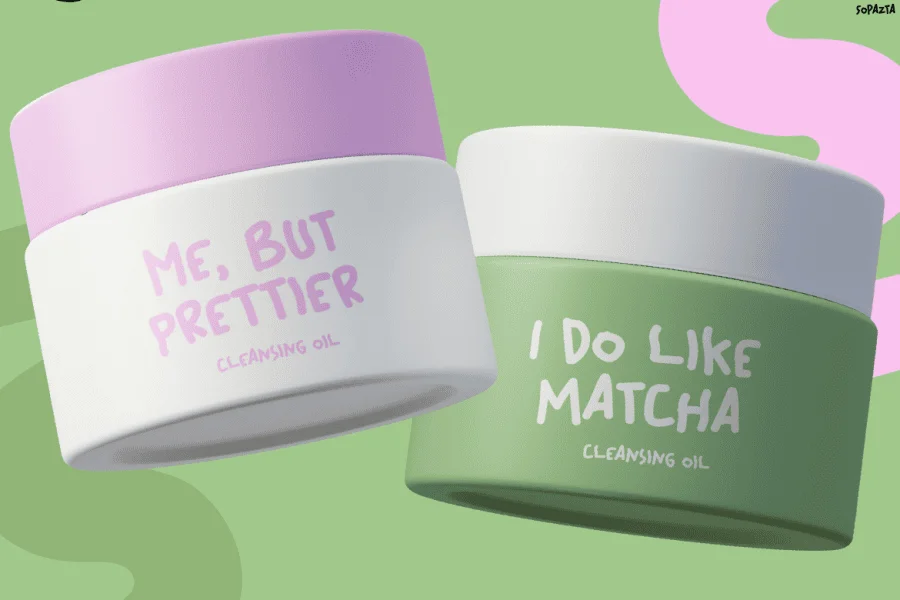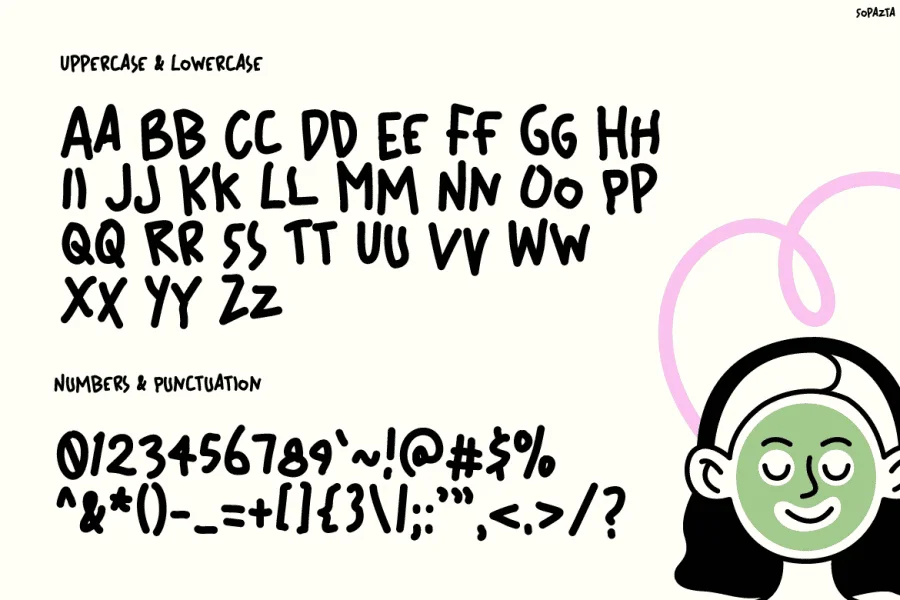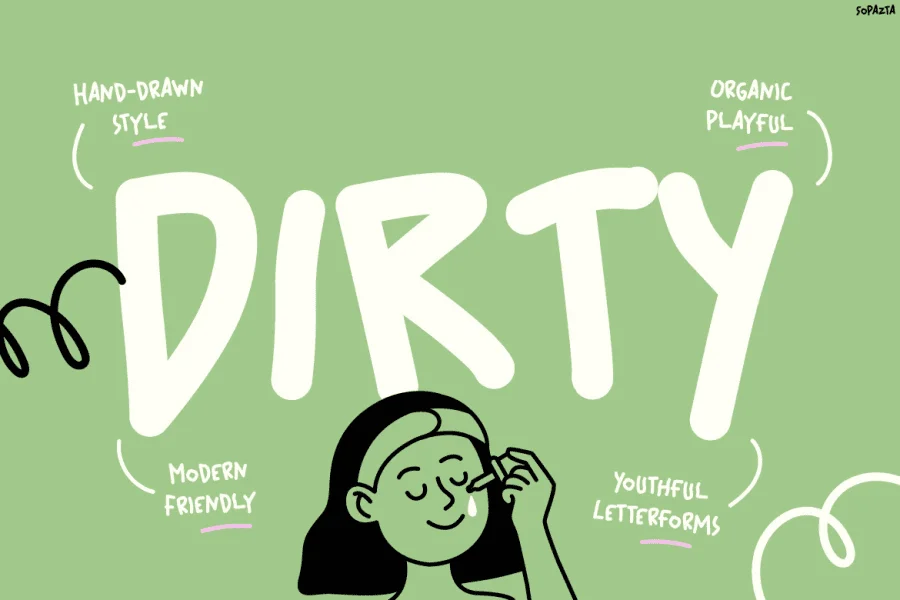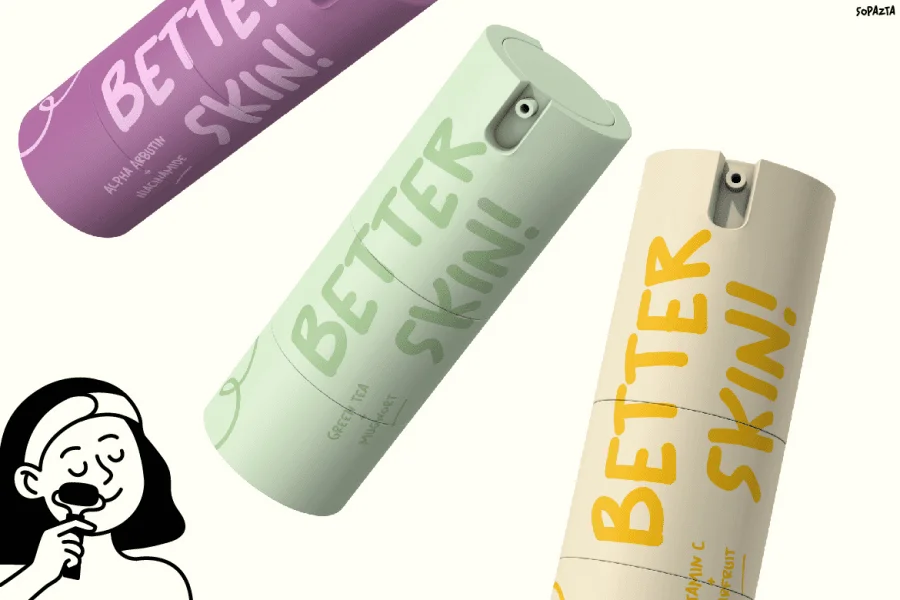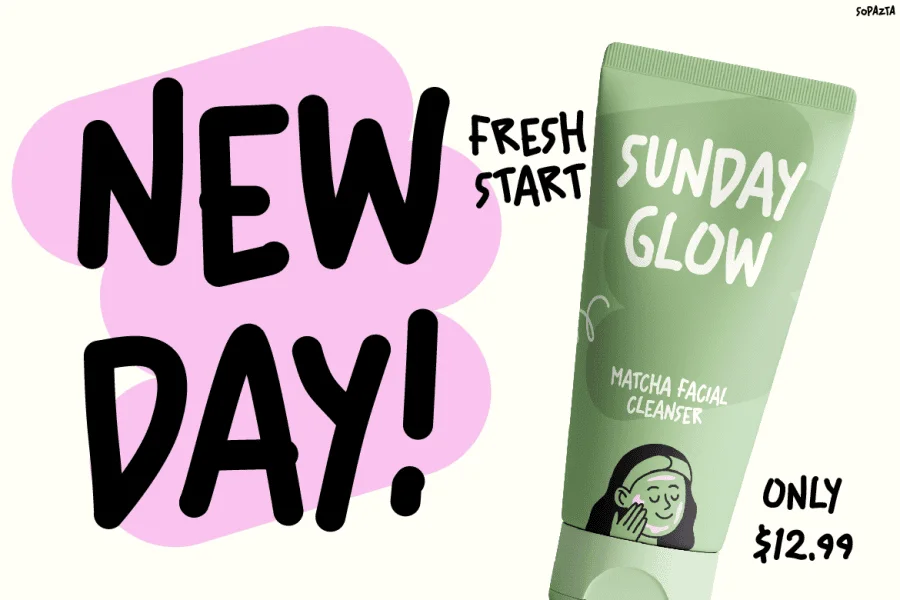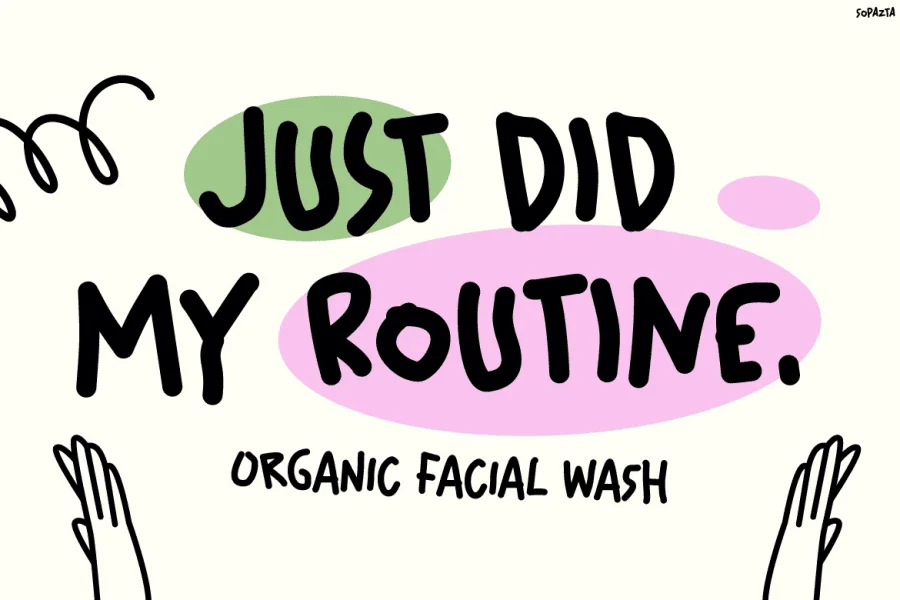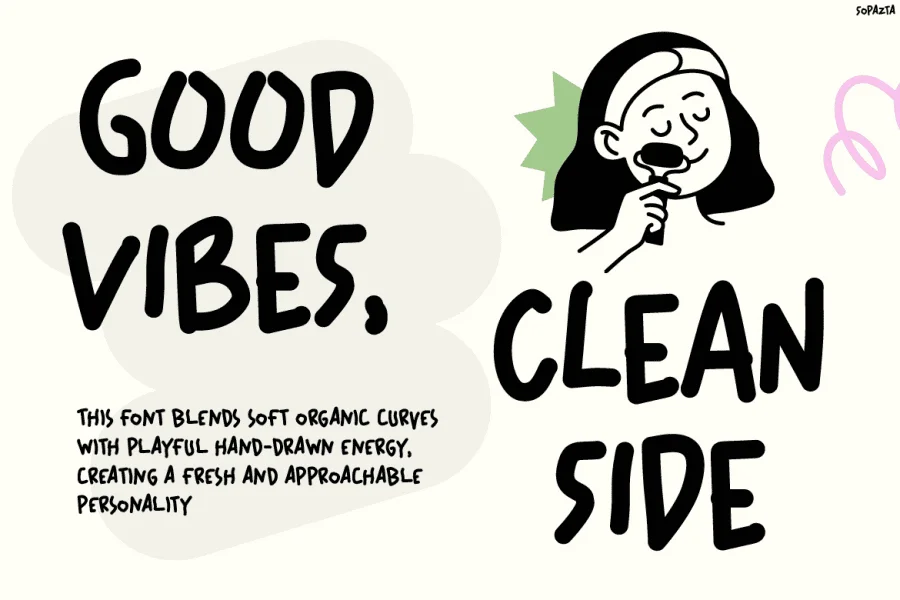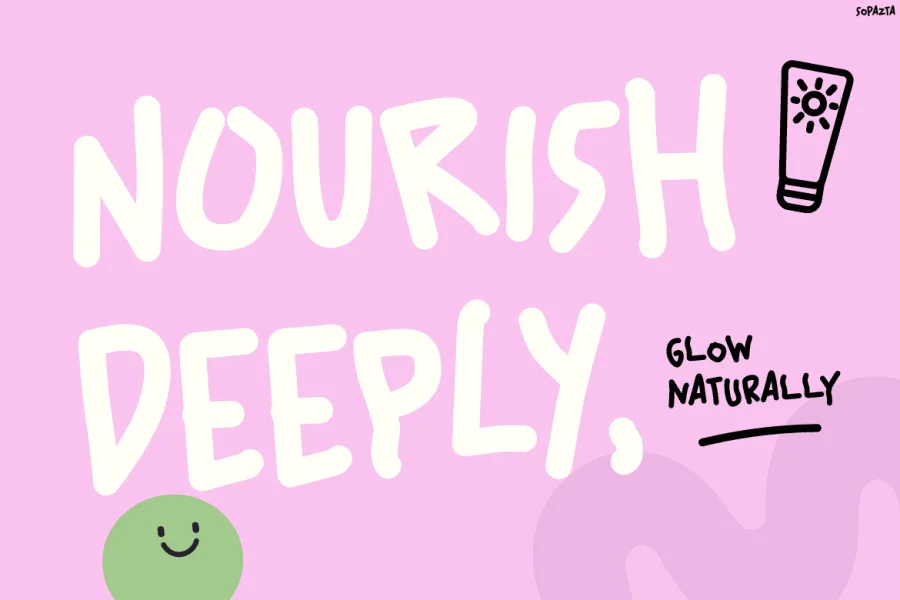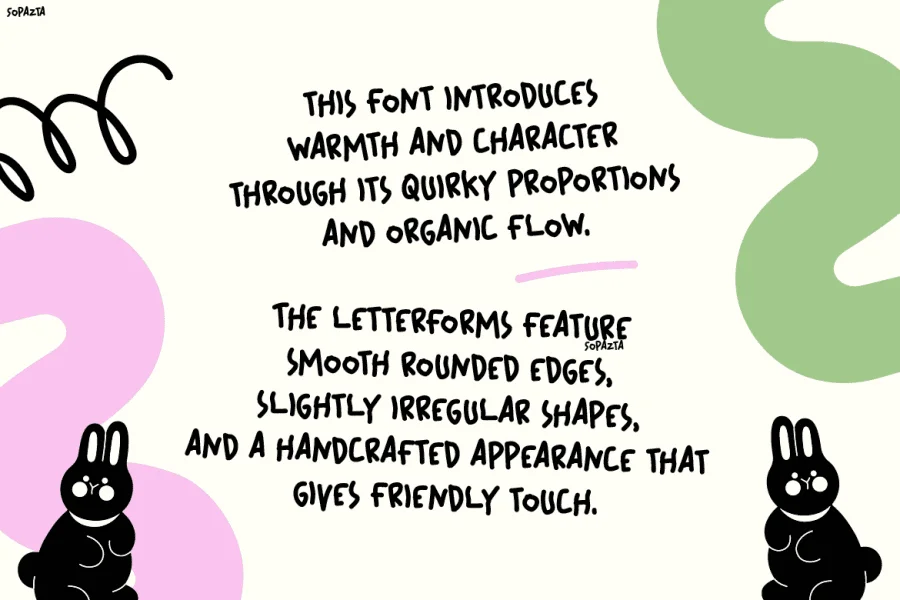
Sopazta is an organic, hand-drawn display typeface with a playful and youthful rhythm. Characterized by its low-contrast, monoline strokes and rounded terminals, the letterforms exhibit a soft, tactile quality reminiscent of felt-tip marker writing. The overall construction is casual and slightly irregular, featuring subtle variations in alignment and stroke direction that give it a warm, human touch. Its upright posture and generous x-height ensure that the playful shapes remain highly legible and structurally sound.
This typeface is exceptionally well-suited for modern, friendly branding, particularly in the cosmetics, skincare, and wellness sectors. Its approachable personality makes it ideal for packaging layouts, product labels, and social media graphics that aim to project a fresh, natural, and authentic vibe. Whether used for prominent headlines, casual subheadings, or engaging promotional callouts, it brings a cheerful and personal energy to any design.